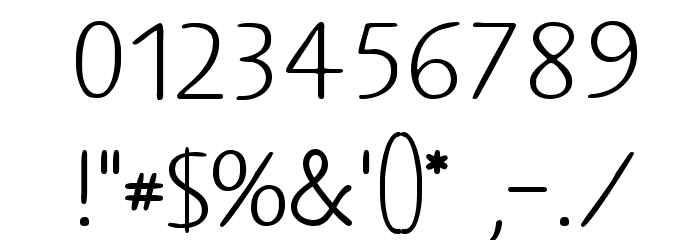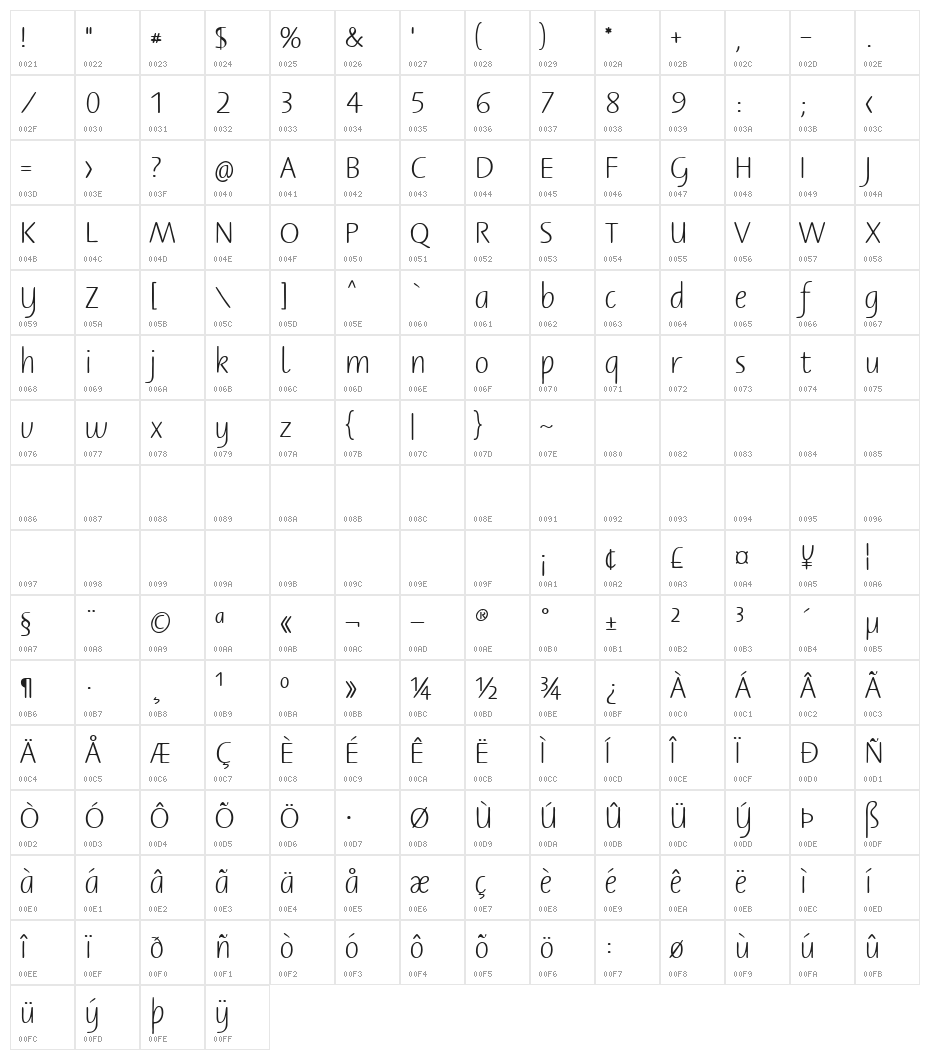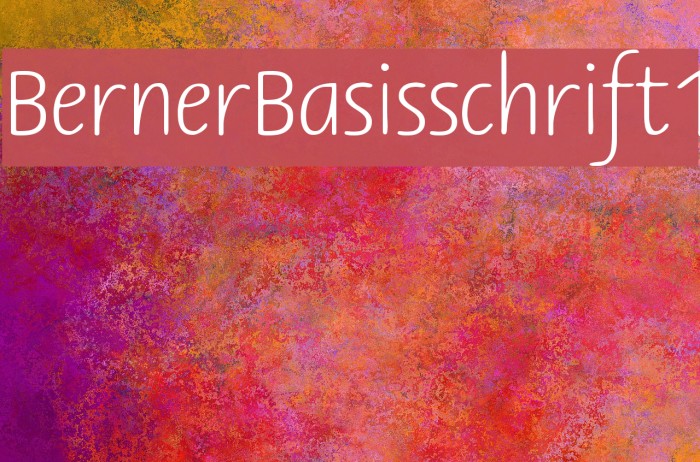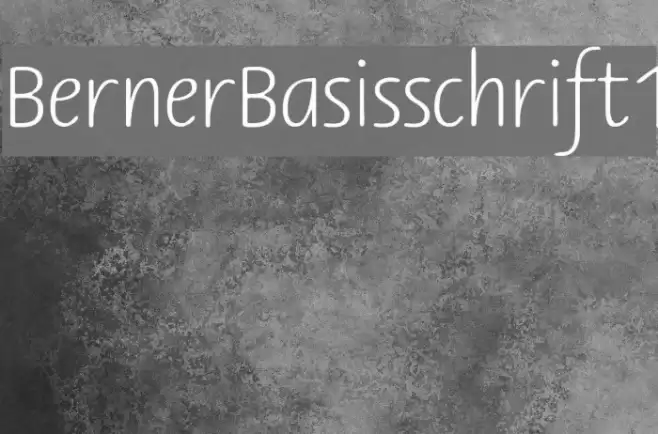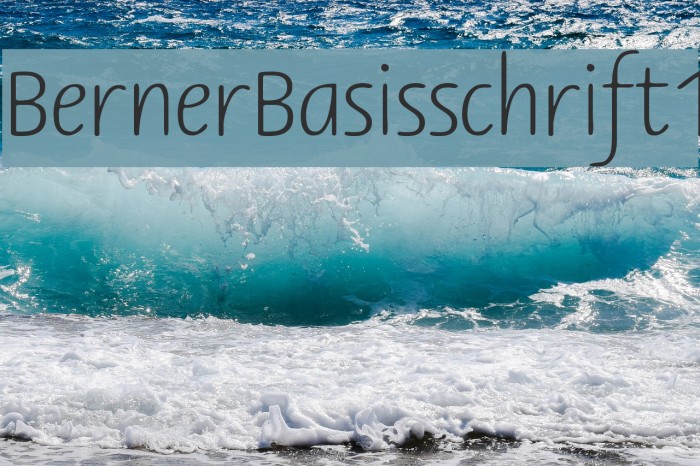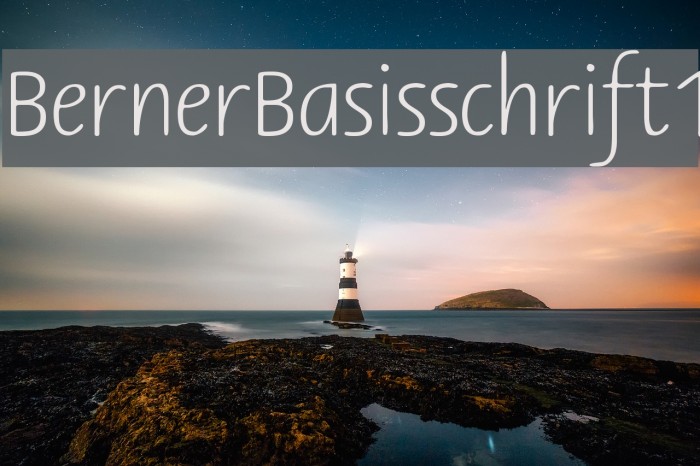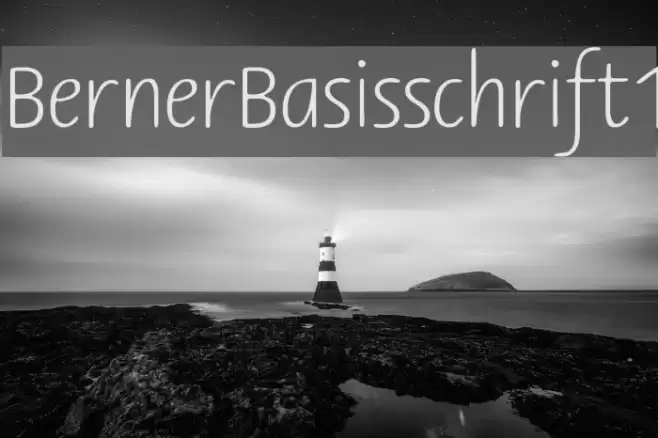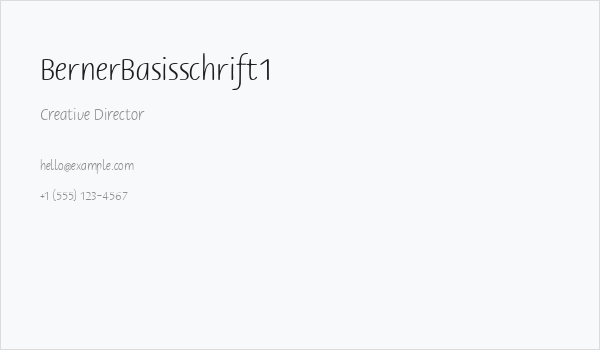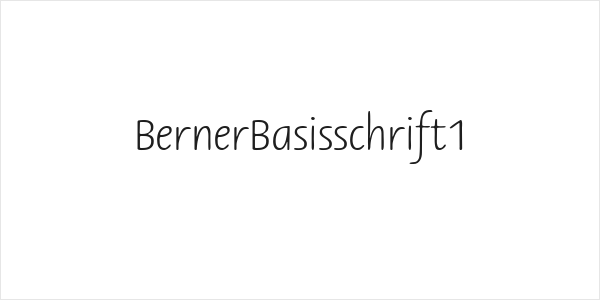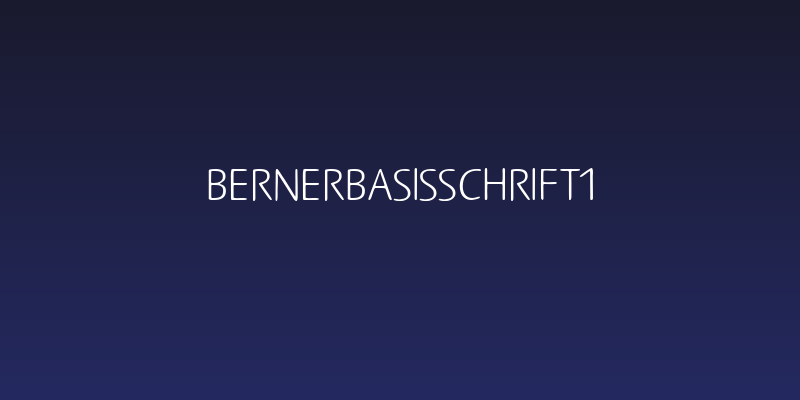
This font features a clean and simple design with rounded edges, giving it a friendly and approachable appearance. The characters are evenly spaced, contributing to its readability. The uppercase letters are slightly taller than the lowercase, maintaining a consistent line weight throughout. Numbers and special characters are designed to match the overall style, ensuring uniformity across all text elements. The font's simplicity makes it versatile for various applications, while its rounded forms add a touch of warmth and personality.
| Proposed Projects | Ideal for educational materials, children's books, casual branding, and user interfaces. |